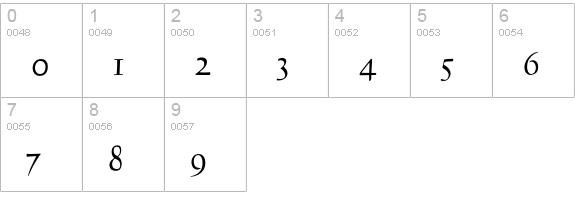
Humanist-Regular Font Details
Humanist-Regular is the standard, neutral variant in the Humanist typeface family \xE2\x80\x94 well suited to general body text, paragraphs, and standard typographic work.
The Humanist-Regular font is a versatile and modern typeface that embodies the principles of humanism and simplicity. With its clean lines and balanced proportions, this font is perfect for a wide range of design projects, from branding to editorial design. What sets Humanist-Regular apart is its harmonious blend of classic elegance and contemporary appeal, making it suitable for both print and digital applications. Its legibility and readability make it an ideal choice for body text, headlines, and everything in between. The best part about Humanist-Regular? It is available for free download at FontsMarket.com, allowing designers and creatives to access this high-quality font without any cost. So go ahead and elevate your designs with the timeless beauty of Humanist-Regular today!